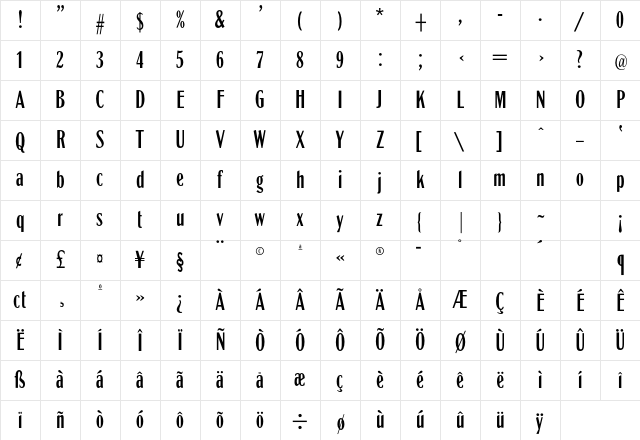
GlobeExCondL is a composed and adaptable typeface that performs quietly and consistently across a wide range of design contexts. Its narrow stance lets it pack a punch even in space-constrained designs.